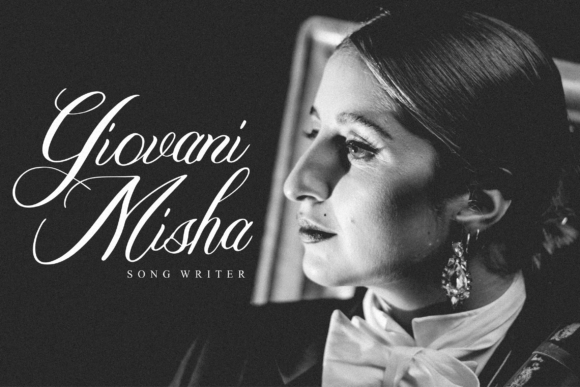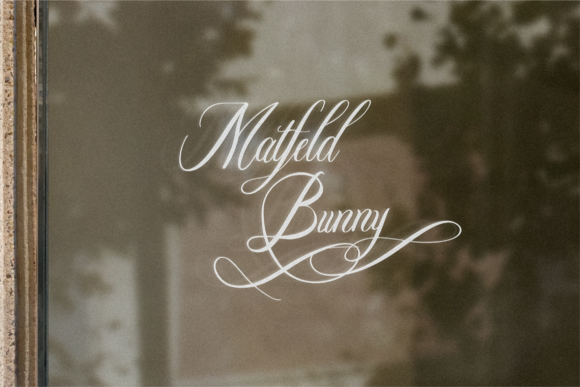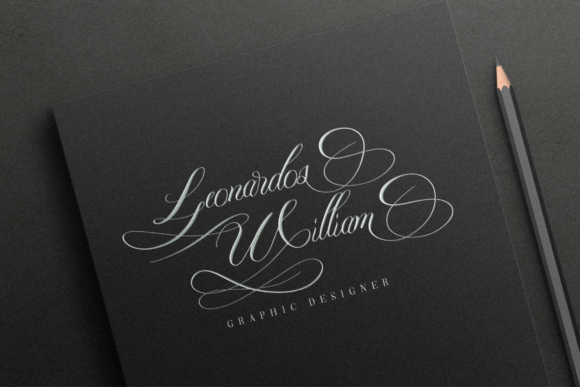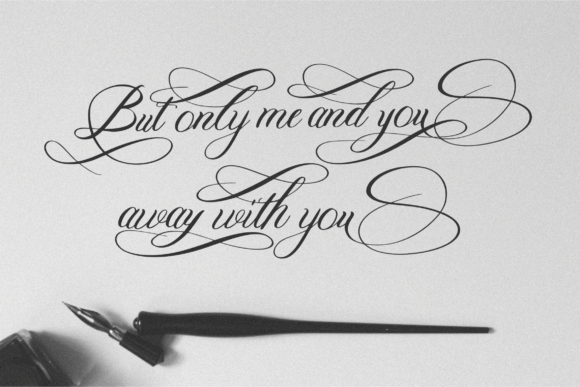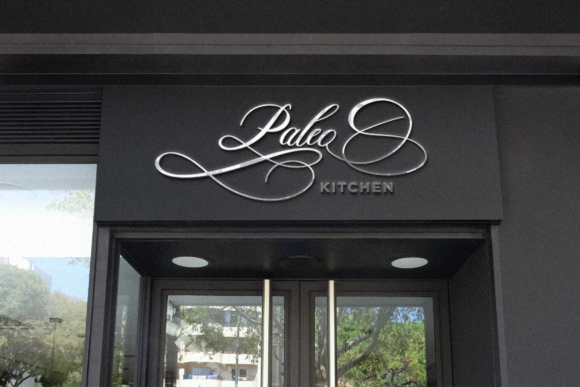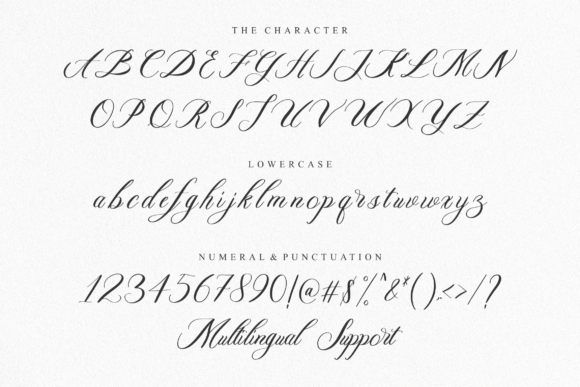
Introduction to Holdywood Font
Holdywood is an elegant and flowing handwritten font.
It is PUA encoded which means you can access all of the glyphs and swashes with ease It maintains its classy calligraphic influences while feeling contemporary and fresh.